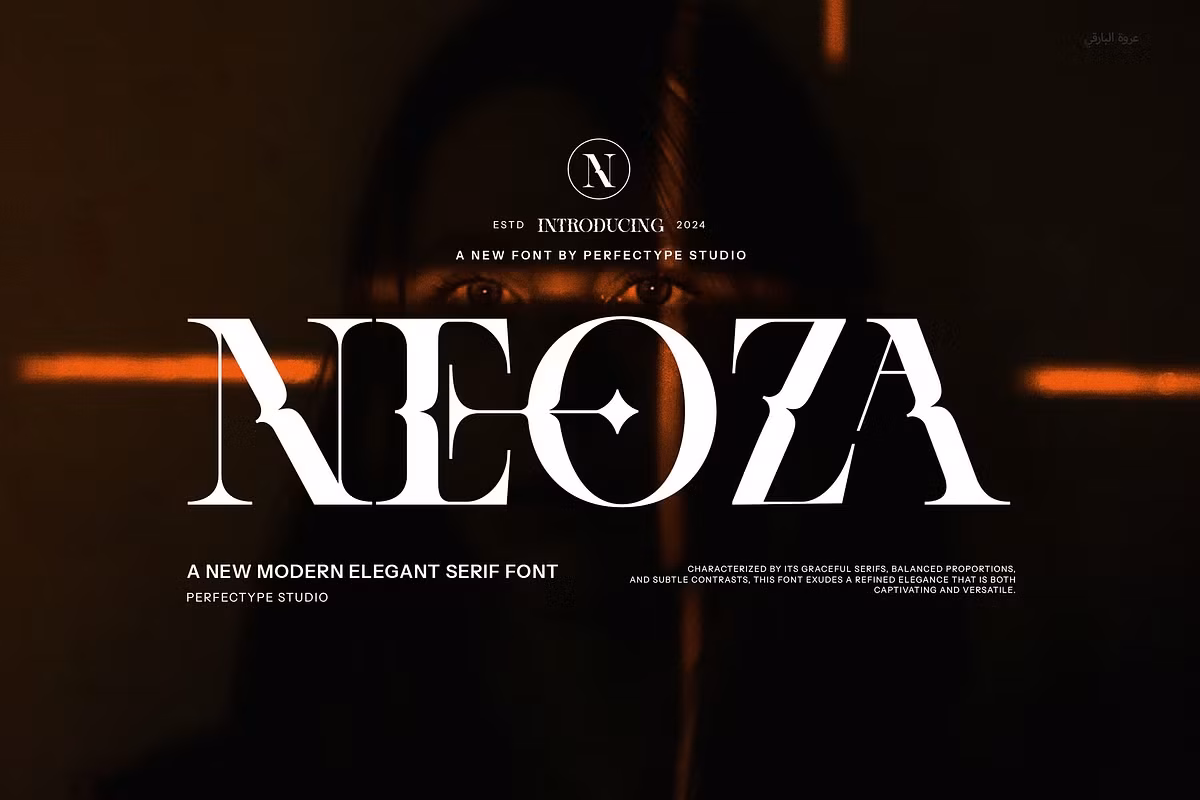
Neoza Modern Serif Font Free Download
Neoza – Modern Serif Font Free Download
Neoza – Modern Serif Font Free Download is a sleek and sophisticated serif typeface that perfectly blends timeless elegance with a clean, contemporary twist. Featuring sharp serifs, smooth curves, and high contrast strokes, Neoza is ideal for branding, editorial layouts, fashion design, logo creation, and luxury product packaging.
With its stylish presence and refined details, Neoza Free Download adds a polished, high-end look to both print and digital designs. The font includes ligatures and alternates to help you create custom, professional-quality typography with ease.